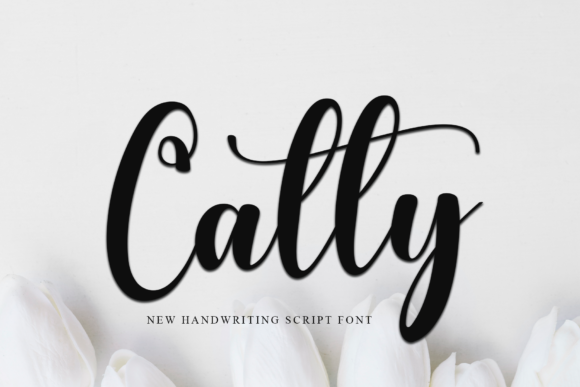
Step into the world of captivating headlines with Catty Font, the ultimate script font crafted to command attention. Each stroke is a stroke of inspiration, designed with precision to turn your words into visual masterpieces.
Indulge in the charm of Catty Font's friendly demeanor, perfect for headlines that exude warmth and personality. Its elegant curves and playful flourishes add a touch of sophistication that will leave an unforgettable impression.
Experience the joy of creating headlines that dance off the screen, captivating your audience with their magnetic presence. Catty Font empowers you to express your brand's unique voice, leaving a lasting impact on the minds of your readers.
Unleash your creativity with Catty Font, the perfect choice for:
- Striking headlines that demand attention
- Eye-catching social media posts that ignite engagement
- Irresistible website banners that drive conversions
- Memorable logos that establish your brand's identity
Don't let your headlines go unnoticed. Embrace the power of Catty Font today and elevate your marketing materials to new heights. Let your words shine with the confidence and charisma they deserve.
With Catty Font, the spotlight is yours. Step into the world of captivating headlines and let your words make a lasting impression.